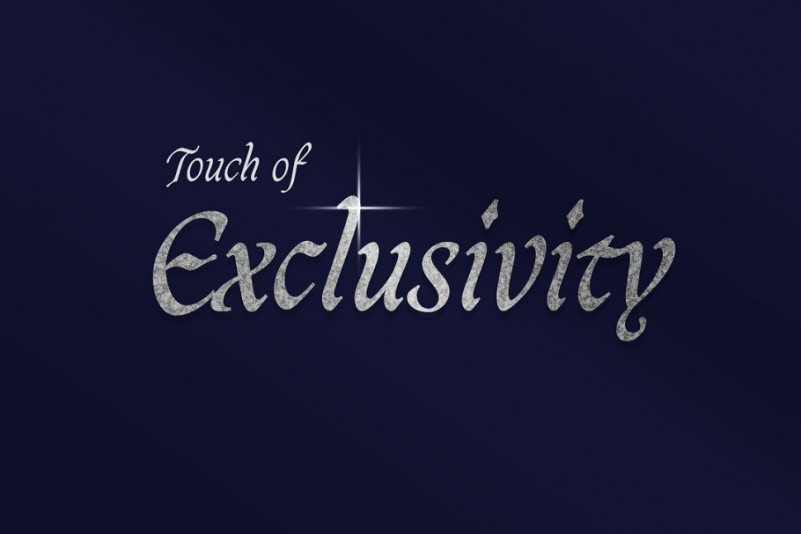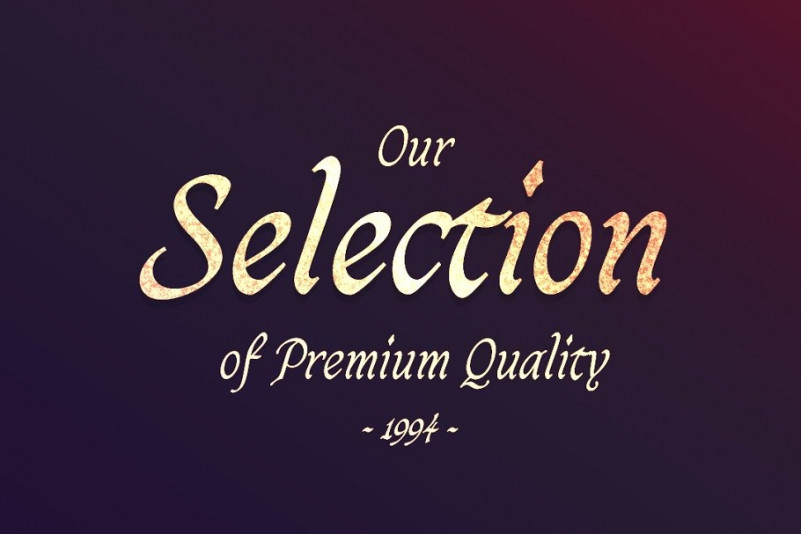
Clover Script Font
The “clover” is a stylish feminine font. It includes amazing swashes which will add a feminine touch to your designs. The classic style is perfect to apply in various formal forms such as invitations, labels, menus, Logos, fashion, make up, stationery, letterpress, romantic novels, magazines, books, greeting / wedding cards, packaging, labels.